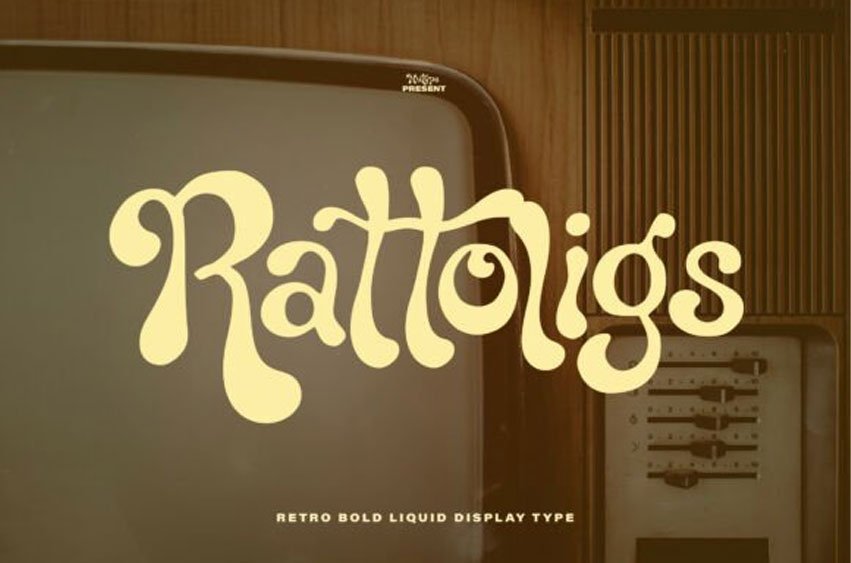
Rattoligs Font
Rattoligs Font Transport your audience back to the golden age of design with Rattoligs font, a retro bold liquid display type that drips with psychedelic style.
This Rattoligs typeface features groovy, flowing curves and high-contrast forms that perfectly capture the essence of 1970s television and music culture.
Ideal for vintage-inspired posters, vinyl record covers, or bold editorial headlines, the Rattoligs font makes a powerful statement with its unique, melting aesthetic. Incorporating the Rattoligs typeface into your project ensures a nostalgic yet modern look that pairs beautifully with warm, sepia-toned photography and grainy textures.
Whether you’re designing for a retro club night or a boutique lifestyle brand, this font brings a rhythmic, liquid energy that is impossible to ignore.